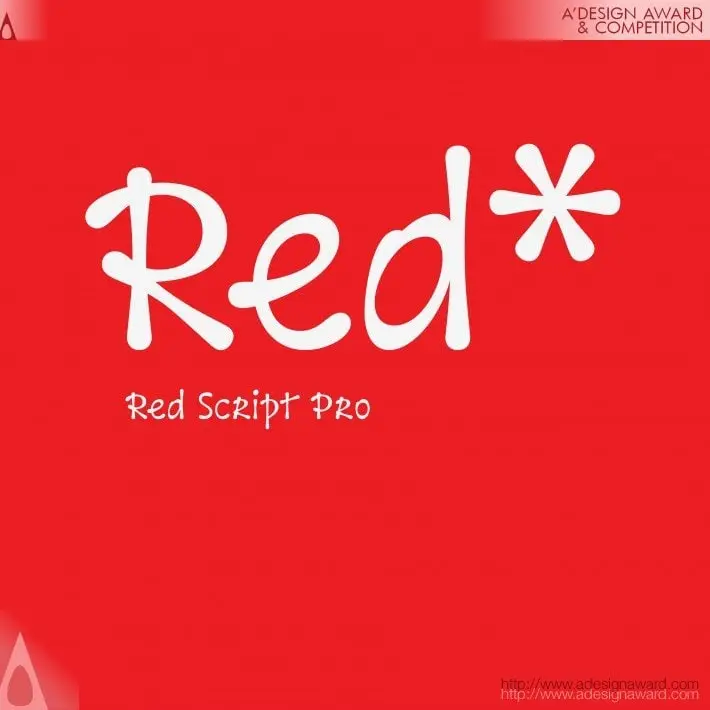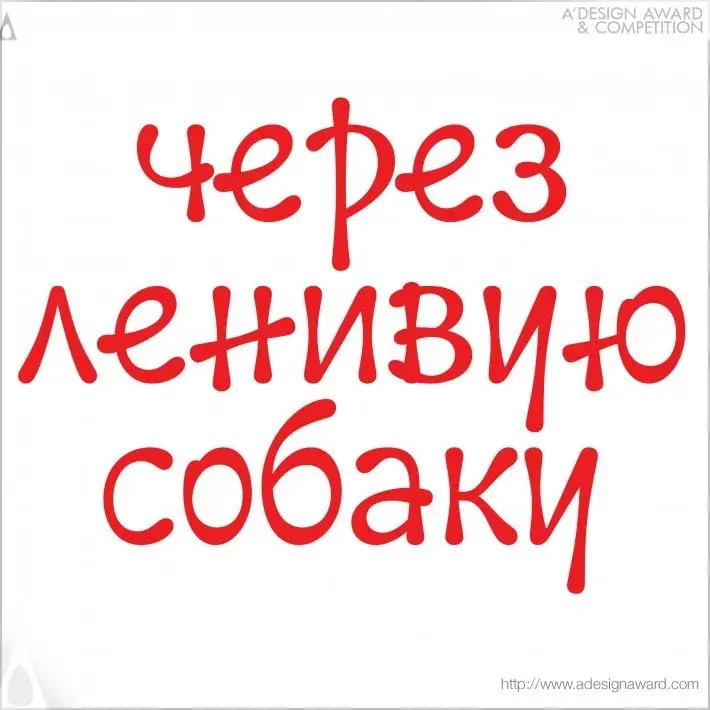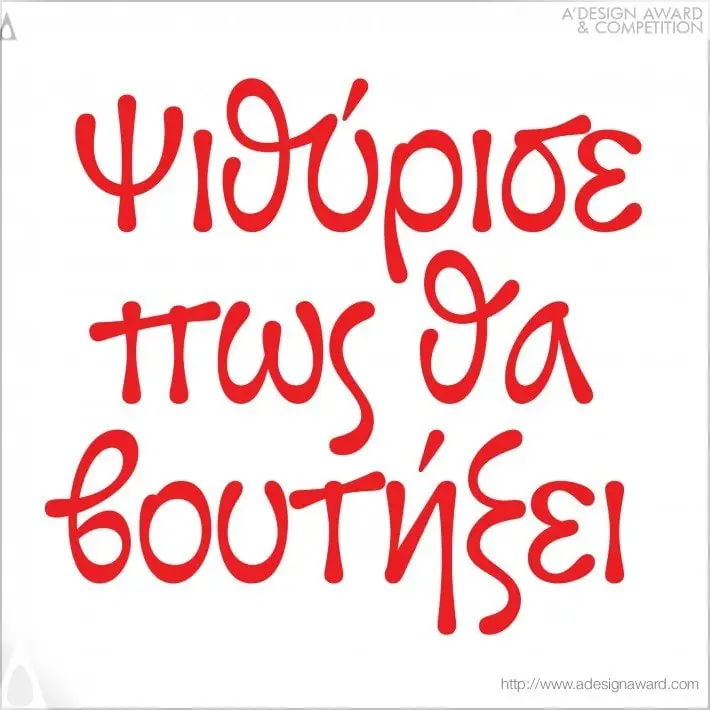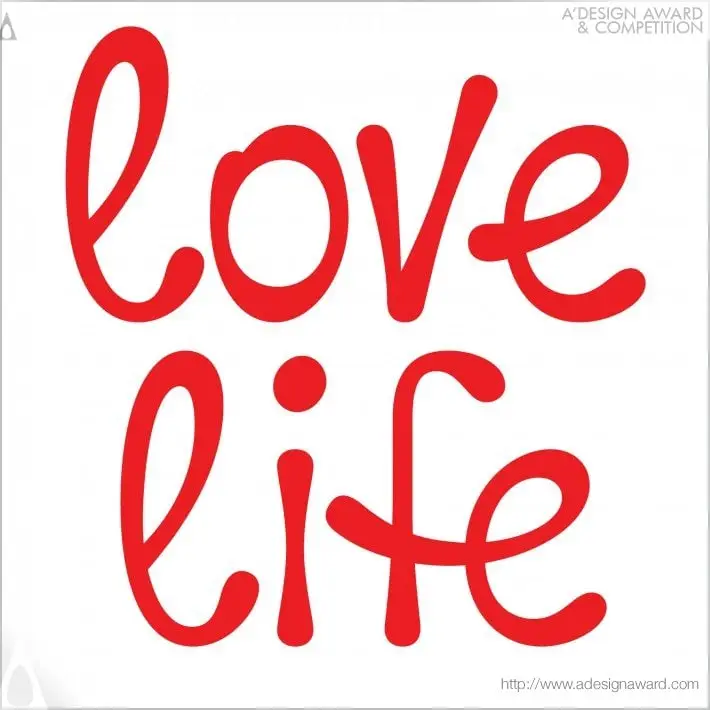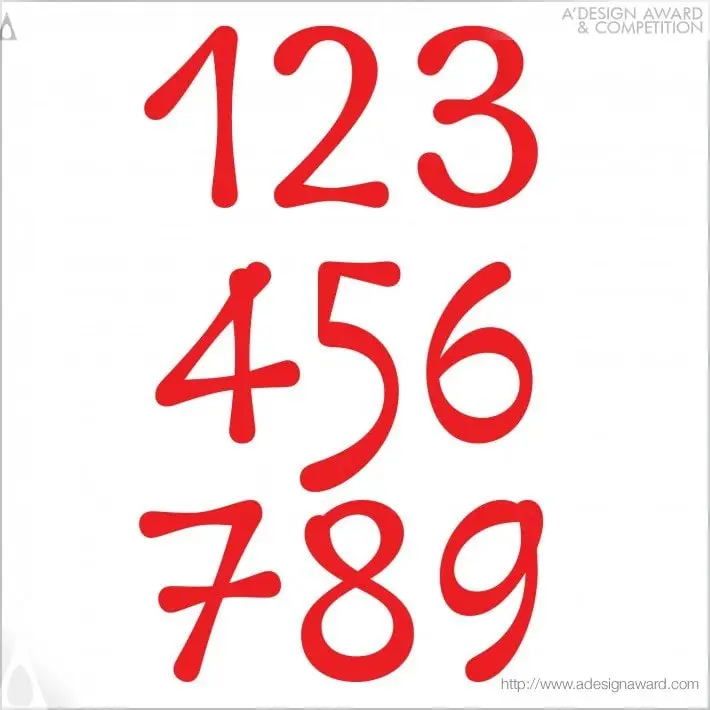
Introducing the Red Script Pro Typeface, designed by Rodanthi Senduka. This elegant script font features a unique blend of fluidity and sophistication, making it perfect for various design applications.
The Red Script Pro Typeface includes multiple weights and styles, ensuring versatility for your projects. Available in OTF and TTF formats, it is suitable for both digital and print use.
• Beautifully crafted script style
• Multiple weights for diverse applications
Utilize the Red Script Pro Typeface for branding, logos, invitations, and any project that requires a touch of elegance. Its flowing design adds a personal touch to your work.